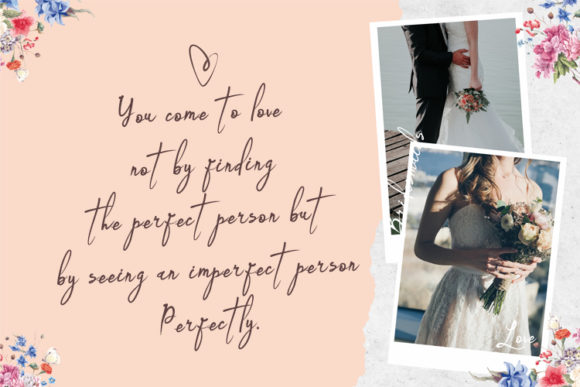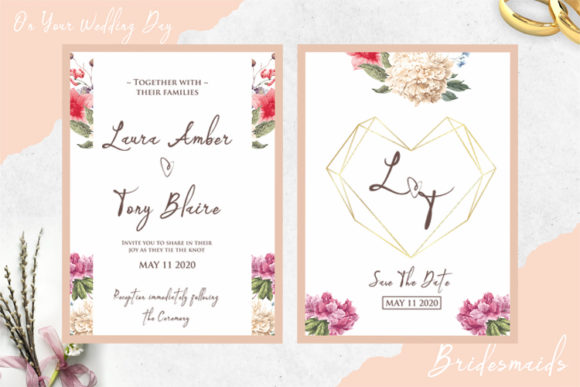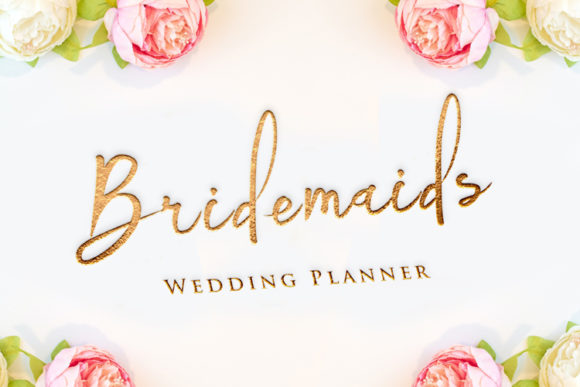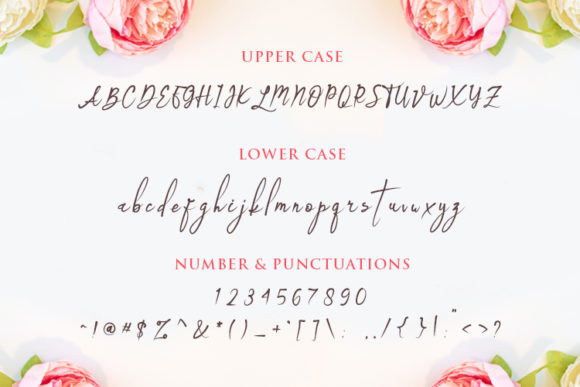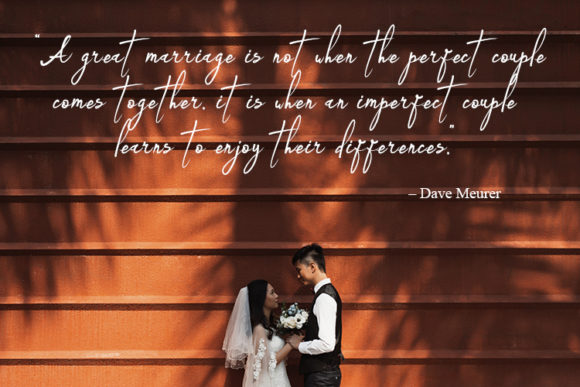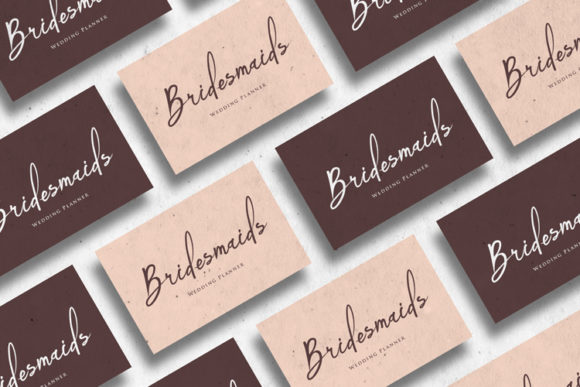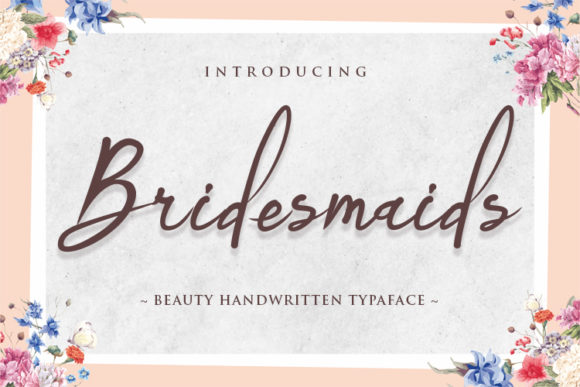
Bridemaids Font: The Perfect Handwritten Touch for Your Designs
Are you looking for a font that adds a delicate and timeless touch to your designs? Look no further than the Bridemaids Font. This incredibly distinct handwritten font is perfect for a variety of design projects, from wedding invitations to business cards. In this article, we’ll explore the features and benefits of the Bridemaids Font and how it can elevate your designs.
What is Bridemaids Font?
Bridemaids Font is a beautiful, handwritten font that exudes elegance and sophistication. Its delicate and intricate strokes make it perfect for designs that require a personal touch. The font is highly versatile and can be used for a wide range of projects, including wedding invitations, thank you cards, quotes, greeting cards, logos, and business cards.
Features of Bridemaids Font
The Bridemaids Font has several features that make it a standout choice for designers and crafters. Some of its key features include:
- Delicate and intricate strokes: The font’s delicate strokes give it a timeless and elegant look that’s perfect for designs that require a personal touch.
- Handwritten feel: The font has a natural, handwritten feel that adds a touch of warmth and personality to your designs.
- Highly versatile: The font can be used for a wide range of projects, from wedding invitations to business cards.
- Easily readable: Despite its delicate nature, the font is easily readable, making it perfect for designs that require a clear and concise message.
Benefits of Using Bridemaids Font
There are several benefits to using the Bridemaids Font in your designs. Some of the most significant advantages include:
- Unique and distinctive look: The font’s delicate and intricate strokes give it a unique and distinctive look that sets it apart from other fonts.
- Emotional connection: The font’s handwritten feel creates an emotional connection with the reader, making your designs more relatable and engaging.
- Perfect for wedding and event designs: The font’s elegant and sophisticated look makes it perfect for wedding invitations, thank you cards, and other event-related designs.
- Easily customizable: The font can be easily customized to fit your design needs, making it a versatile choice for a wide range of projects.
Using Bridemaids Font in Your Designs
Using the Bridemaids Font in your designs is easy. Here are a few tips to get you started:
- Pair it with other fonts: The Bridemaids Font pairs well with other fonts, making it easy to create a unique and visually appealing design.
- Experiment with different colors: The font looks great in a variety of colors, so don’t be afraid to experiment and find the perfect color for your design.
- Use it for headings and titles: The font’s delicate and intricate strokes make it perfect for headings and titles, adding a touch of elegance and sophistication to your designs.
The Bridemaids Font is a beautiful, handwritten font that’s perfect for designers and crafters looking to add a delicate and timeless touch to their designs. Its unique and distinctive look, emotional connection, and versatility make it a standout choice for a wide range of projects. Whether you’re designing wedding invitations, business cards, or greeting cards, the Bridemaids Font is sure to elevate your designs and make them more engaging and relatable.